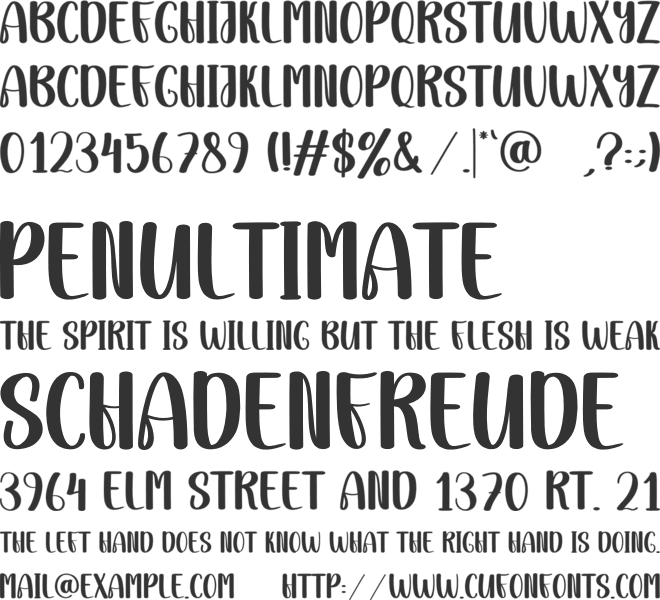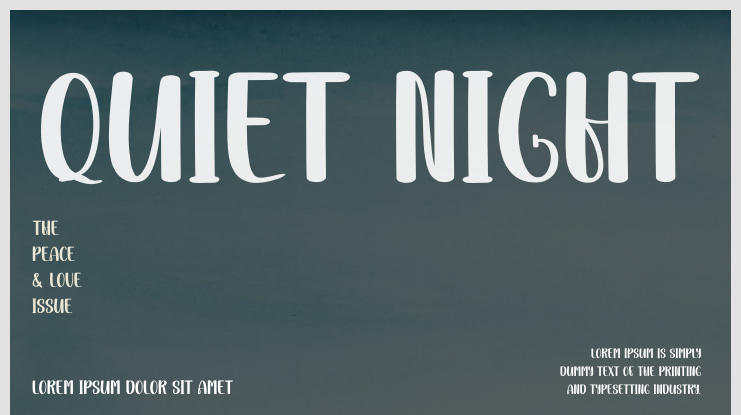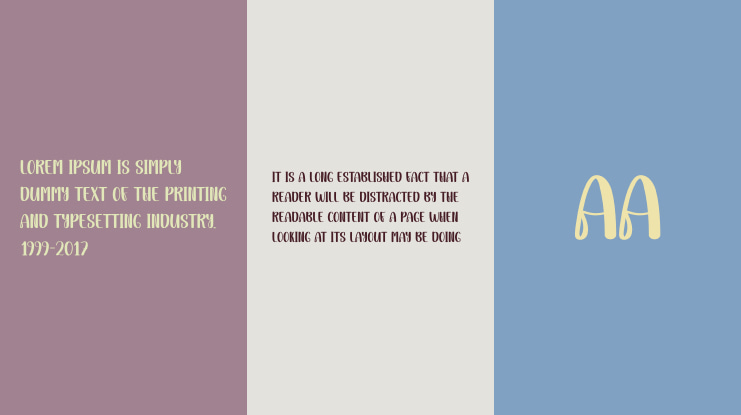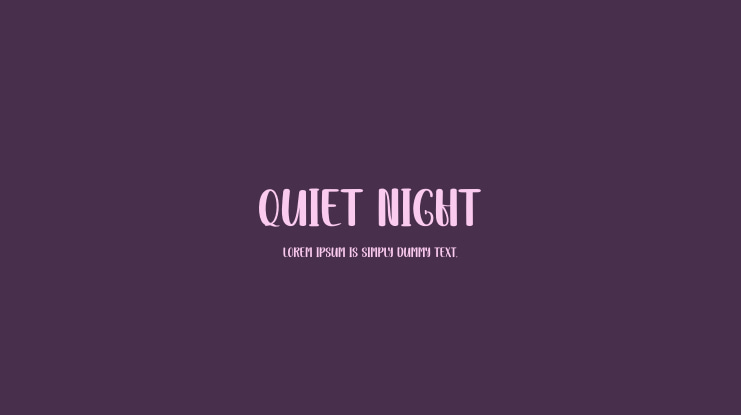
Quiet Night Font
Our latest stylish fonts are ideal for a variety of uses including wall displays, wedding invitations, social media logos, advertisements, product packaging, design projects, labels, photography, watermarks, invitations, stationery, and any project that demands elegant handwriting.